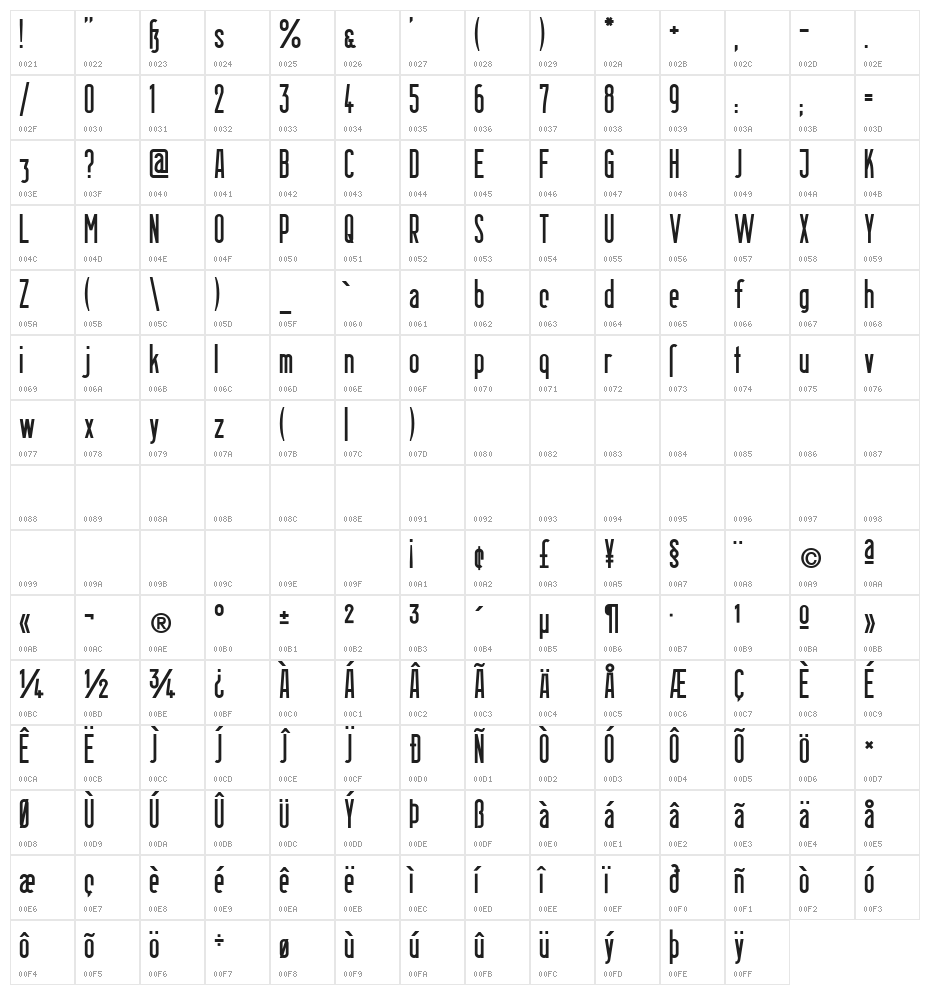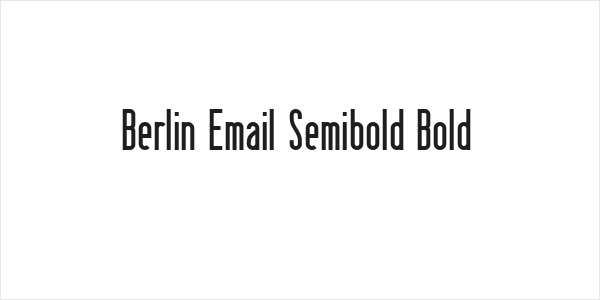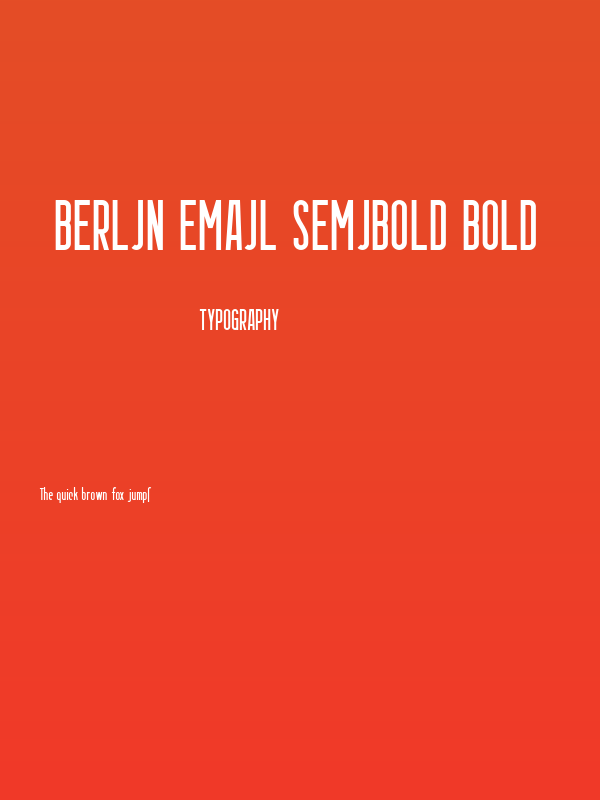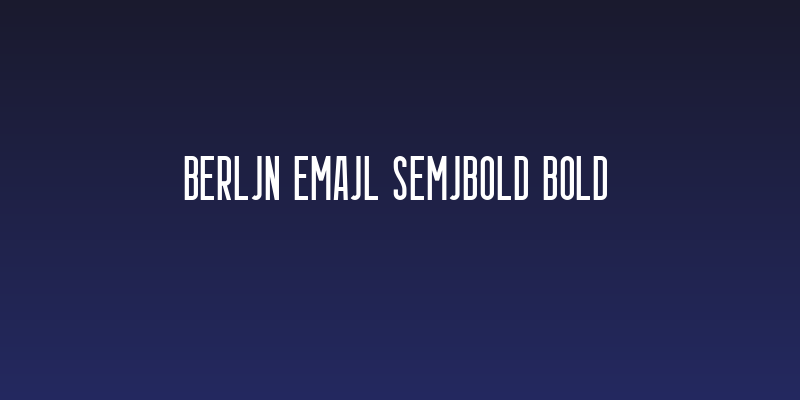
Berlin Email Semibold Bold Font
Berlin Email Semibold Bold Description
This font features a bold and striking design with tall, narrow characters that convey a sense of modernity and strength. The uppercase letters are particularly elongated, giving a unique and dynamic appearance. The lowercase letters maintain a consistent style, with rounded edges that add a touch of softness to the overall boldness. Numbers are clear and easily readable, making them suitable for various applications. Special characters are well-integrated, ensuring versatility in usage. The font's strong vertical emphasis and clean lines make it ideal for impactful headlines and branding projects.
| Proposed Projects | Ideal for branding, headlines, posters, and any project requiring a modern, impactful typeface. |